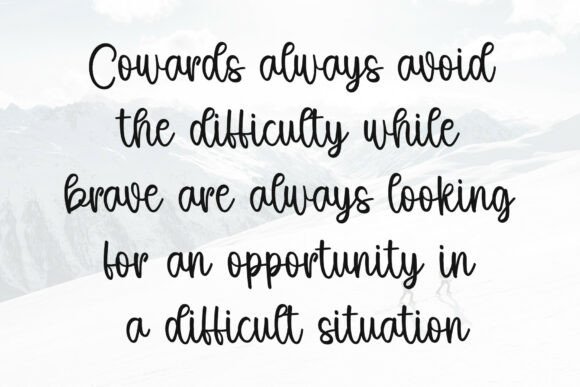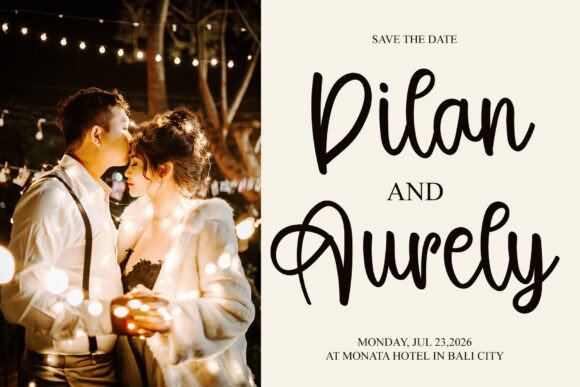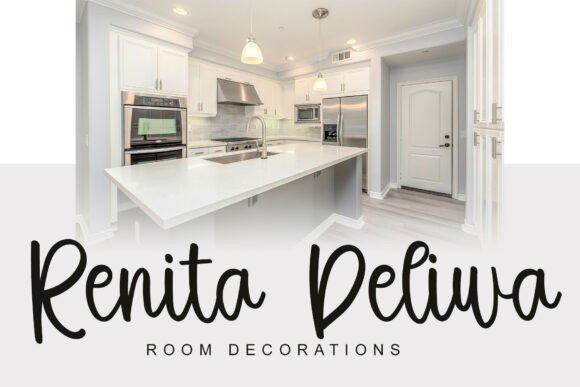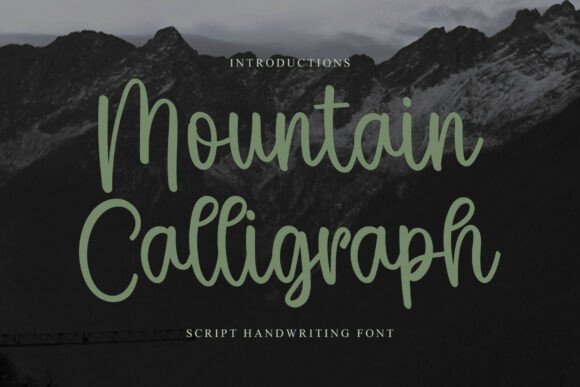
Mountain Calligraph is a stylish and dainty script font.
It is suitable for any projects such as : logos, branding projects, label, photography, watermark, special events, and all your other lovely projects that need a beautiful script taste This font is PUA encoded which means you can access all of the glyphs and swashes with ease.
Mountain Calligraph Font offers exceptional quality and versatility, making it a valuable addition to your design toolkit. Whether you’re creating for personal projects or commercial use, Mountain Calligraph Font delivers professional results.